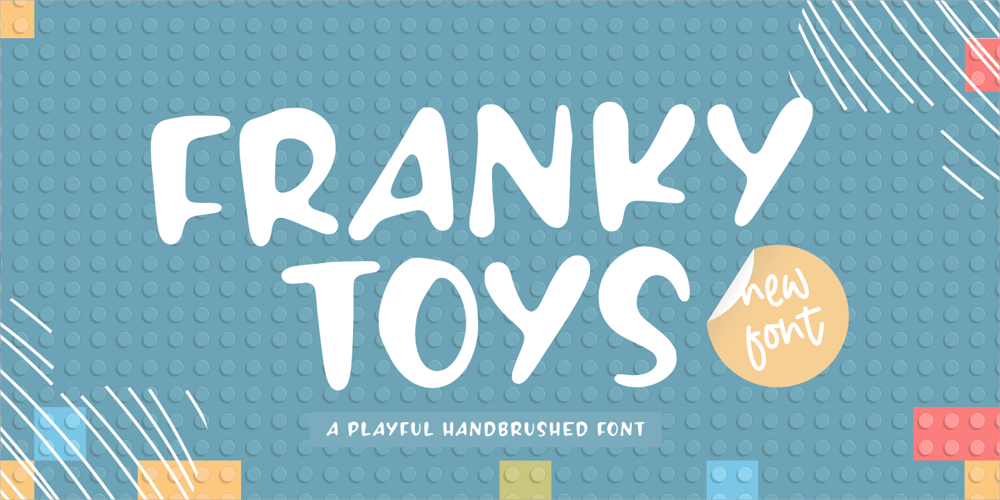
Franky Toys
Franky Toys font
Franky Toys Font Family was designed by Restu Angga and published by Balpirick. Franky Toys contains 1 styles and family package options. FRANKY TOYS is a Playful Hand-brushed Font. display font. This font icolorful perfect for children themed designs, especially when combined with bright colors.FRANKY TOYS also multilingual support.Enjoy the font, feel free to comment or feedback, send me PM or email.